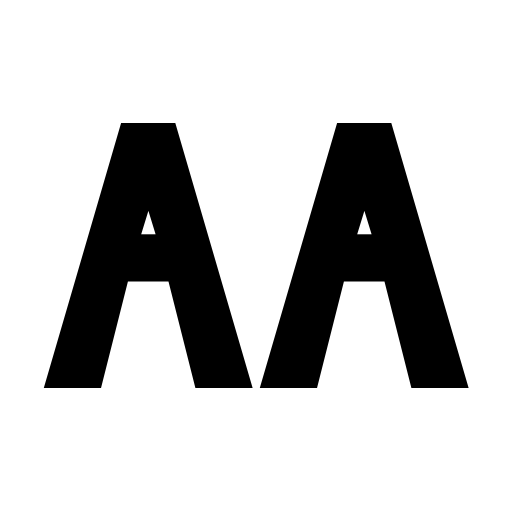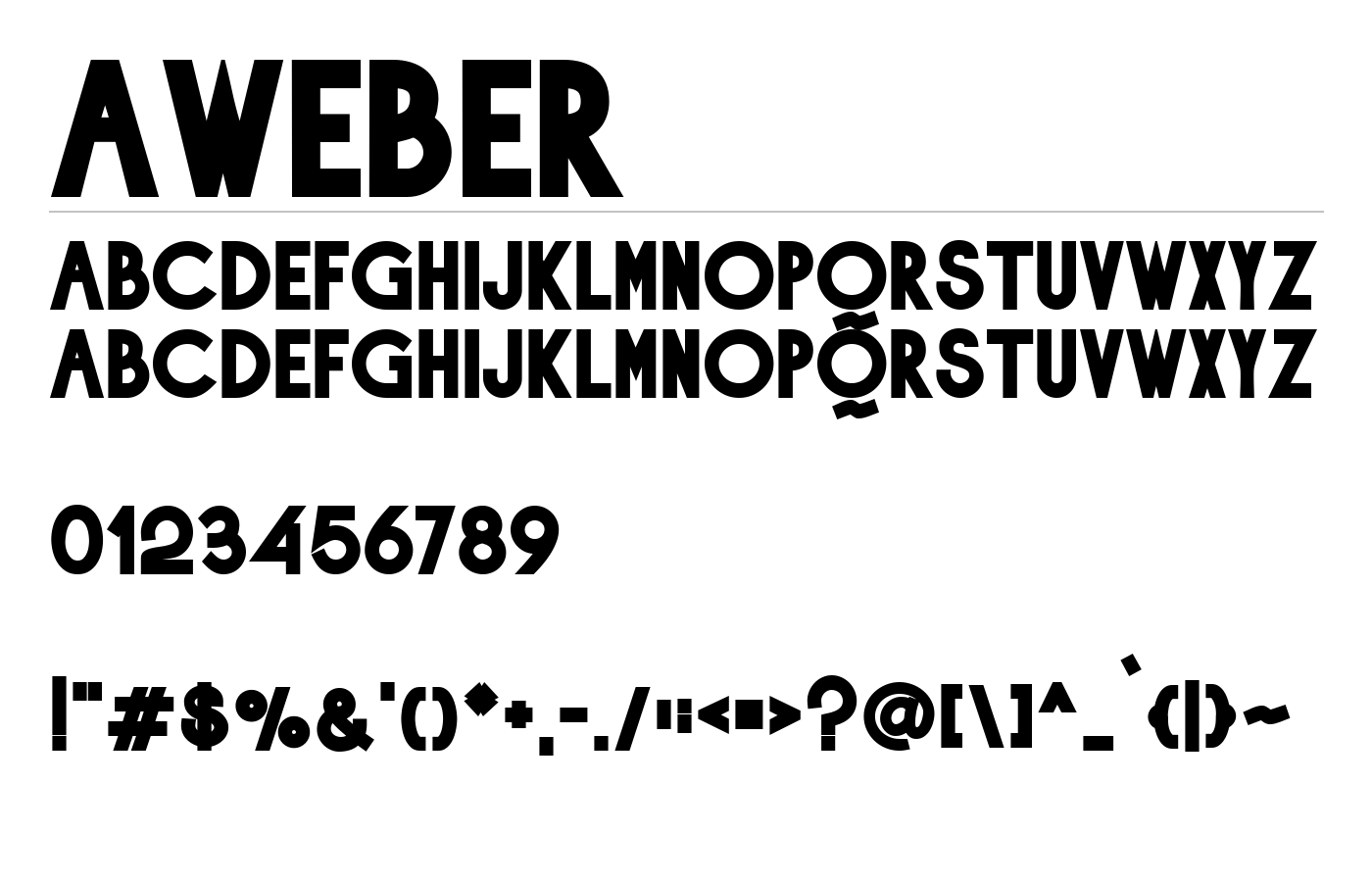
Aweber is a bold, geometric sans-serif font characterized by its strong, clean lines and slightly condensed letterforms that create a striking presence. Its high x-height and uniform stroke weight make it highly legible and modern, while unique details like the angled terminal on the "R" add personality. This font works exceptionally well for headlines, logos, and branding where a confident, contemporary look is desired.
Aweber Font
About Aweber Font